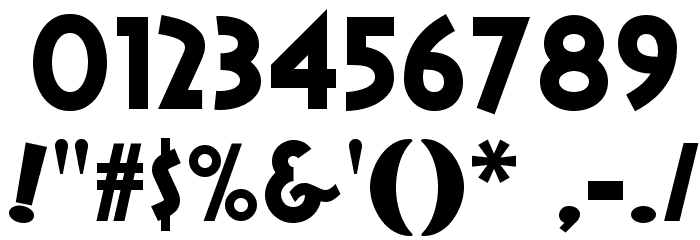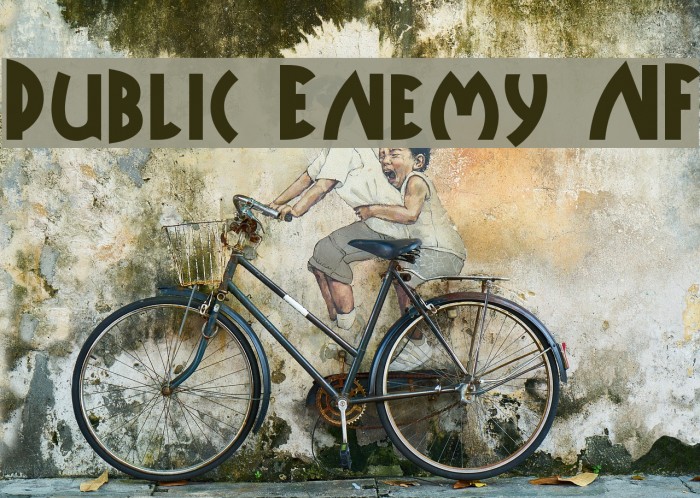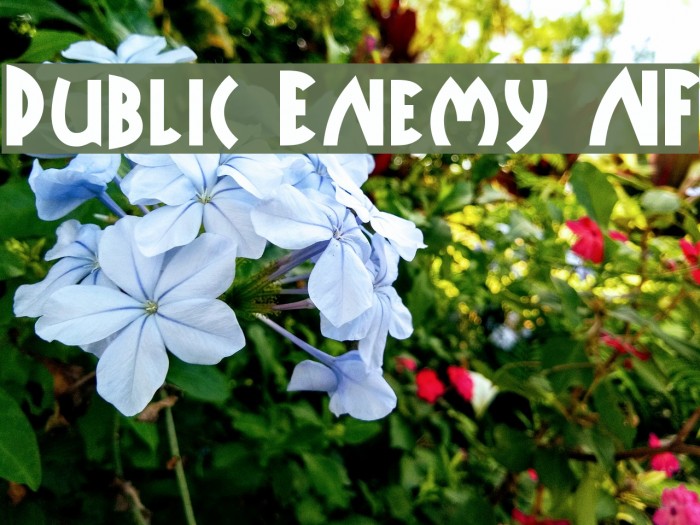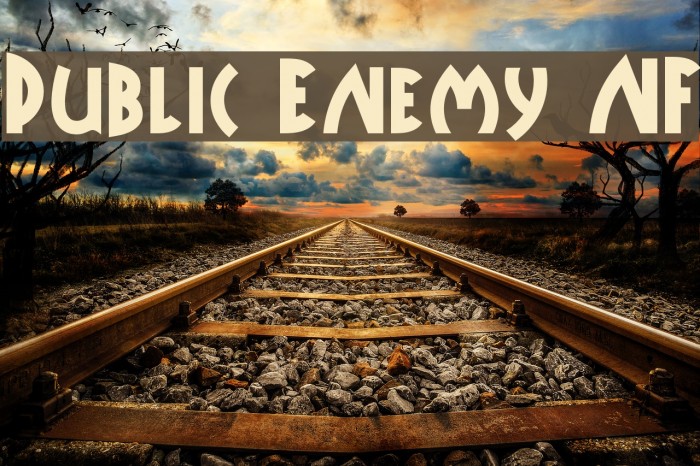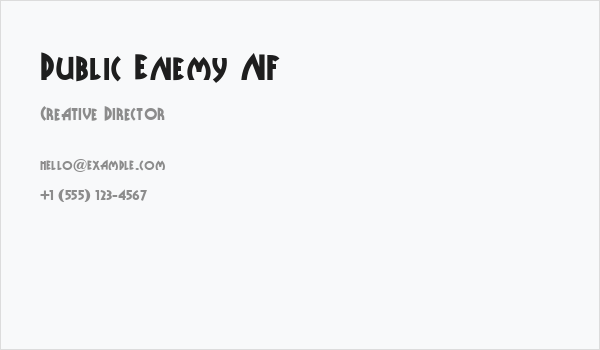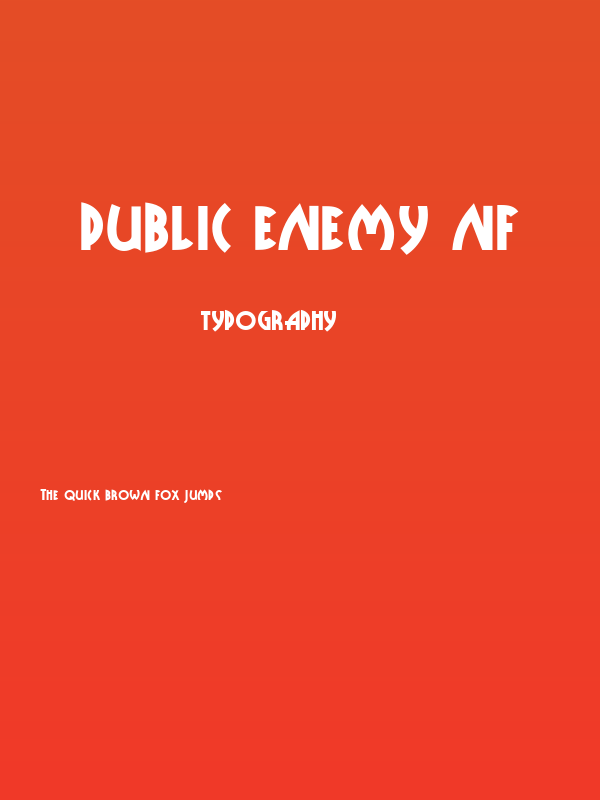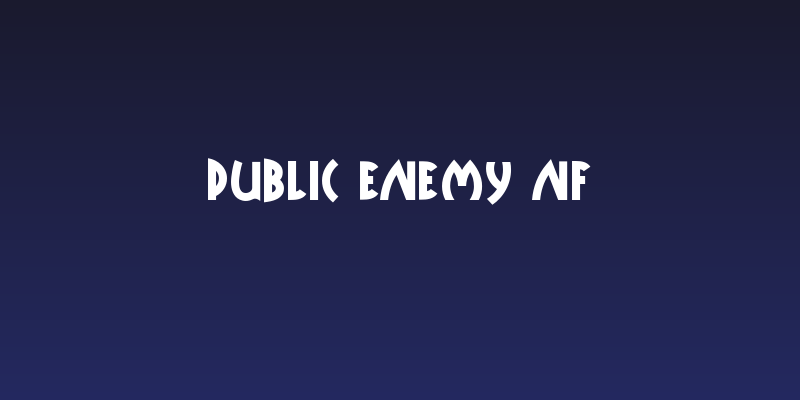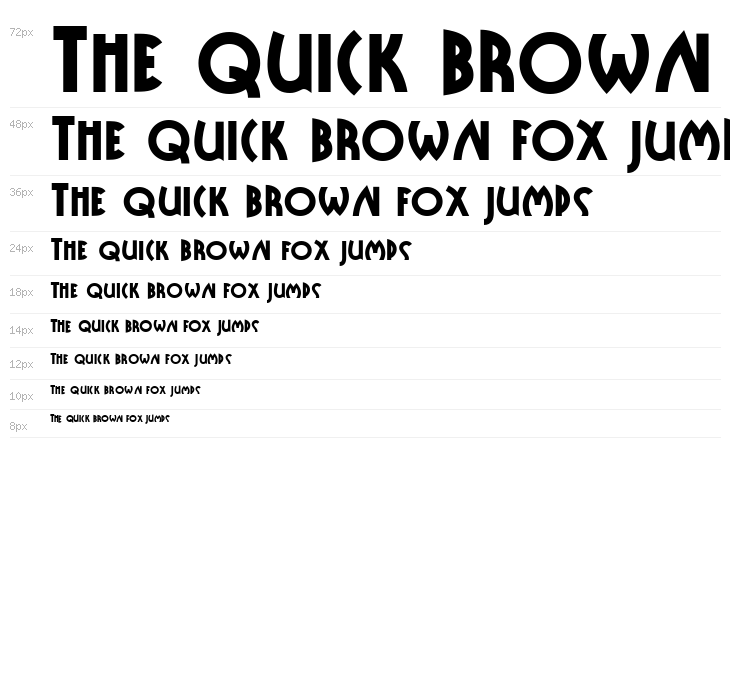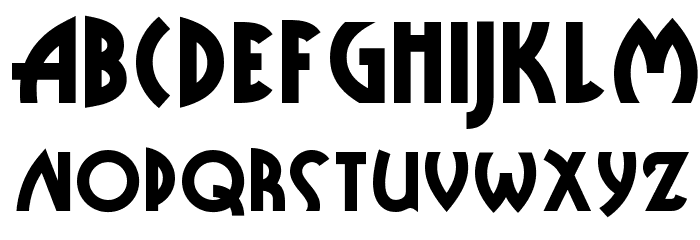
Public Enemy NF Font
Public Enemy NF Description
This font features a bold and striking design with a distinct Art Deco influence. The characters are characterized by strong geometric shapes and sharp angles, giving it a powerful and dynamic appearance. The uppercase letters are particularly bold, with a unique flair in the curves and lines that make each letter stand out. The numbers and special characters maintain the same bold and geometric style, ensuring consistency throughout the typeface. This font is designed to capture attention and convey a sense of strength and modernity.
| Overall Style | Modern, Art Deco |
| Proposed Projects | Perfect for branding, poster design, album covers, and any project requiring a bold, attention-grabbing typeface. |